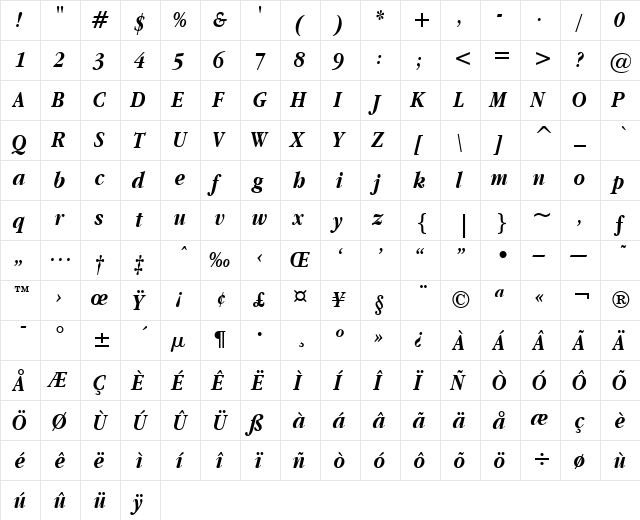
Apple Garamond BT Bold Italic
Design Context for Apple Garamond BT Typeface
Apple Garamond BT offers clean, dependable letterforms without strong stylistic allegiance, making it a practical choice for designers who need flexibility. The slanted form adds forward momentum and visual energy. Its bold stroke weight gives it real presence on the page.
Pro Tip: Try Apple Garamond BT for annotation and caption copy alongside an upright companion — the contrast in angle creates a dynamic but ordered typographic system.